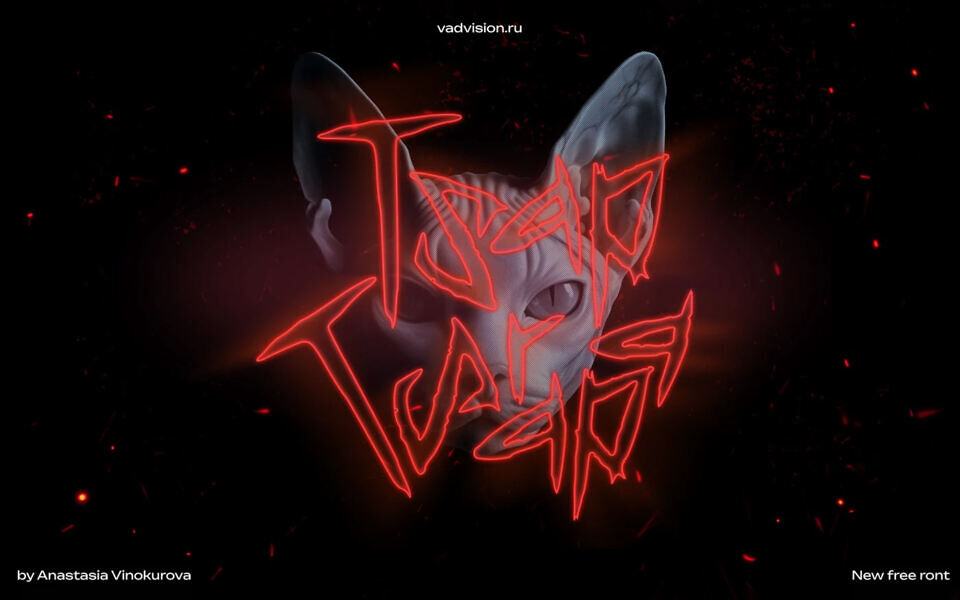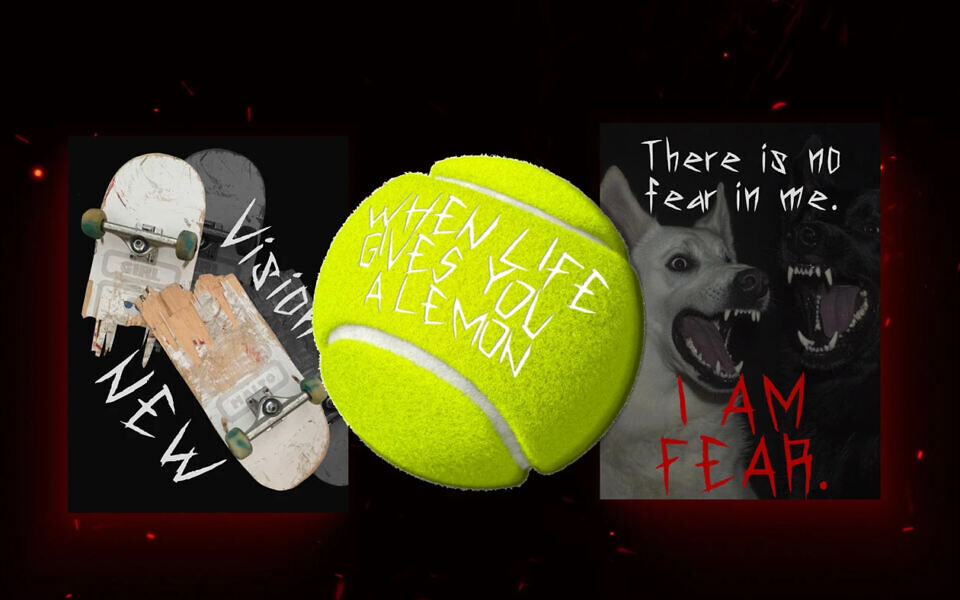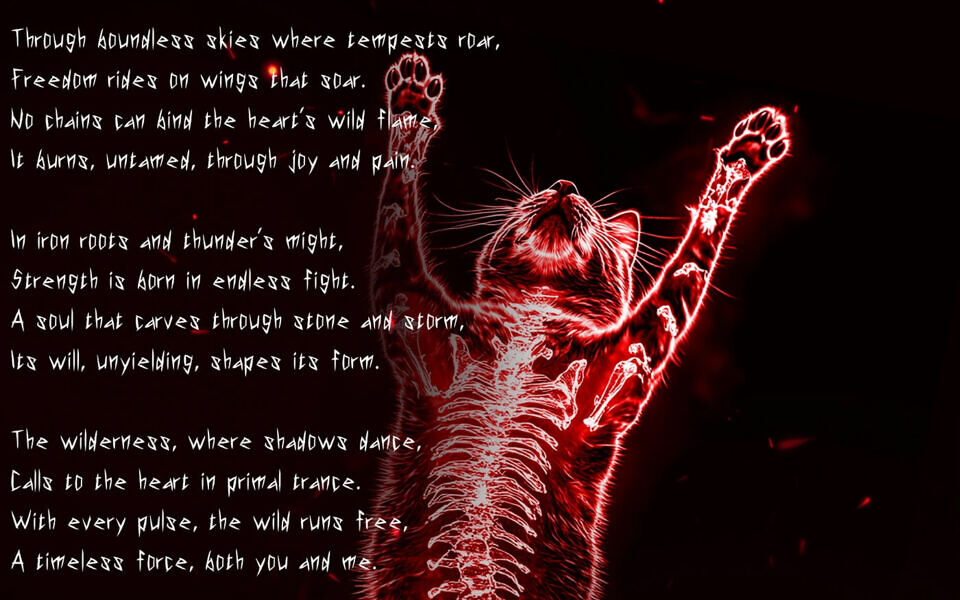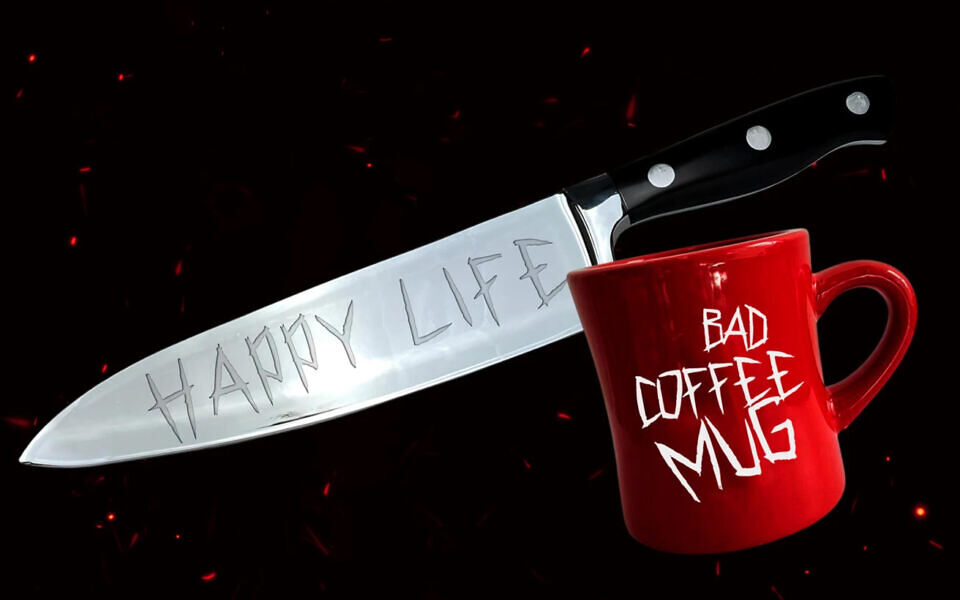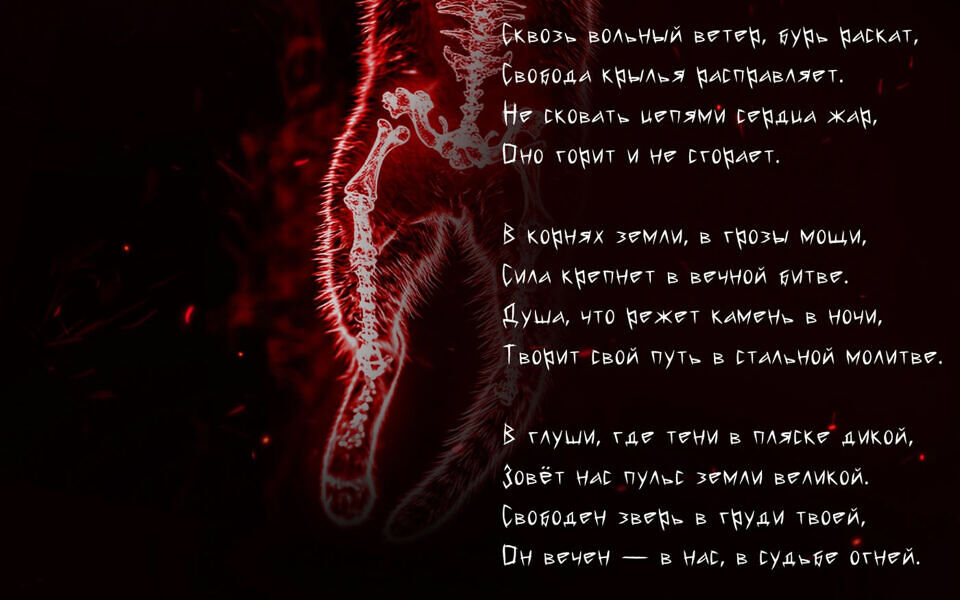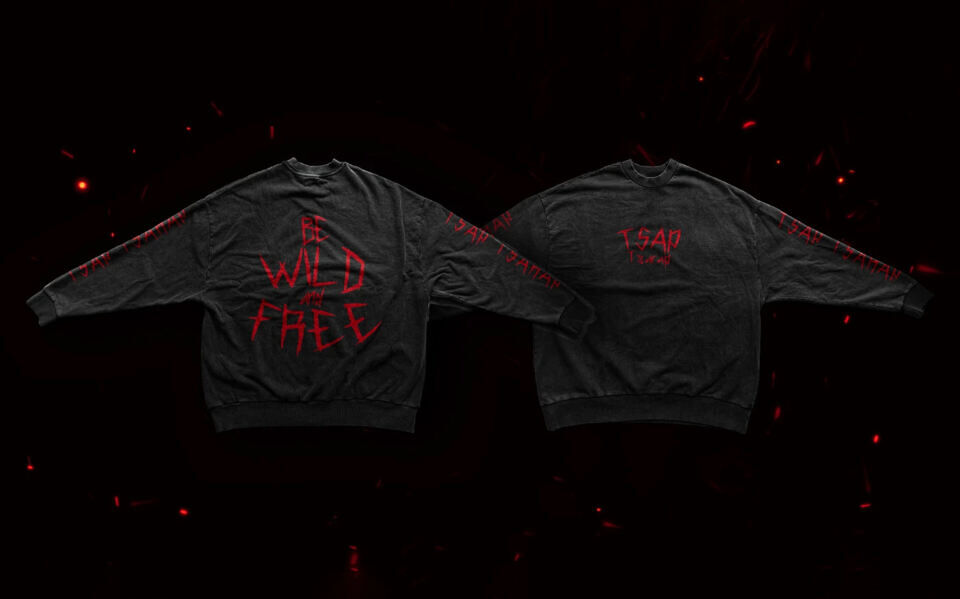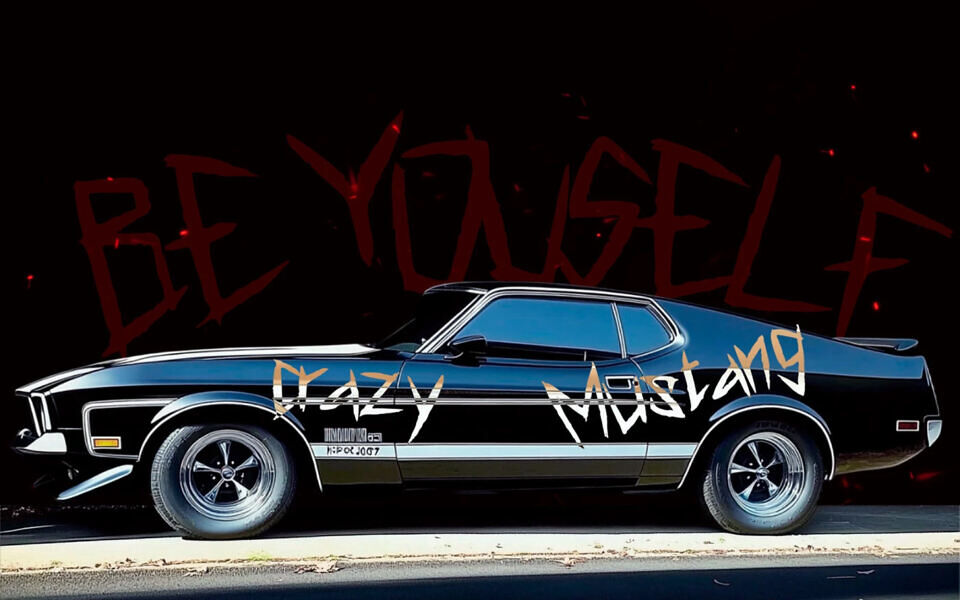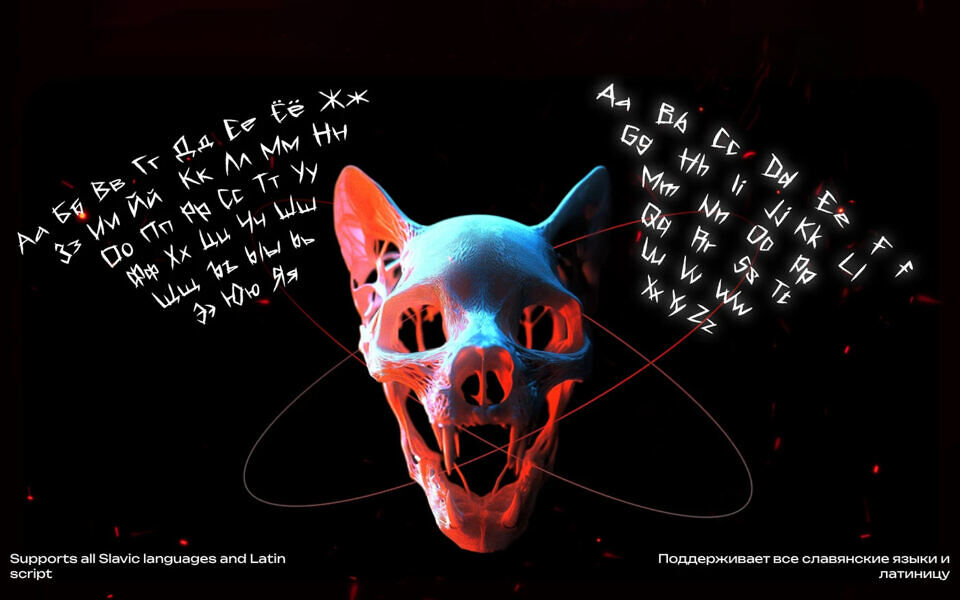
Tsap‑Tsarap is a free, high‑impact display font by Anastasia Vinokurova. With jagged, scratchy letterforms evoking raw graffiti and occult flair, it exudes chaos and rebellion—perfect for posters, horror-themed designs, or edgy branding.
Its untreated, aggressive strokes make a bold visual statement wherever you need a wild, untamed typographic voice.